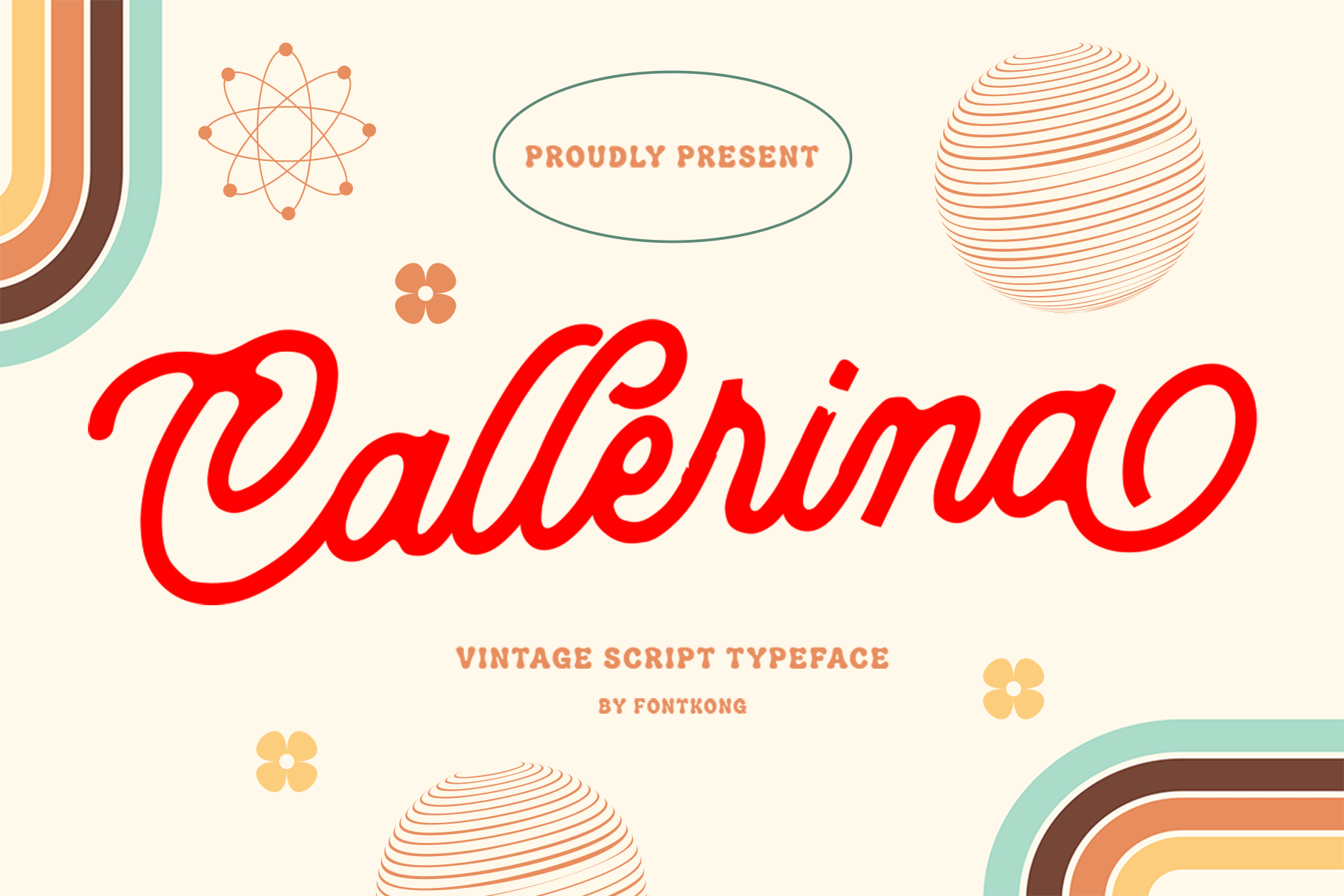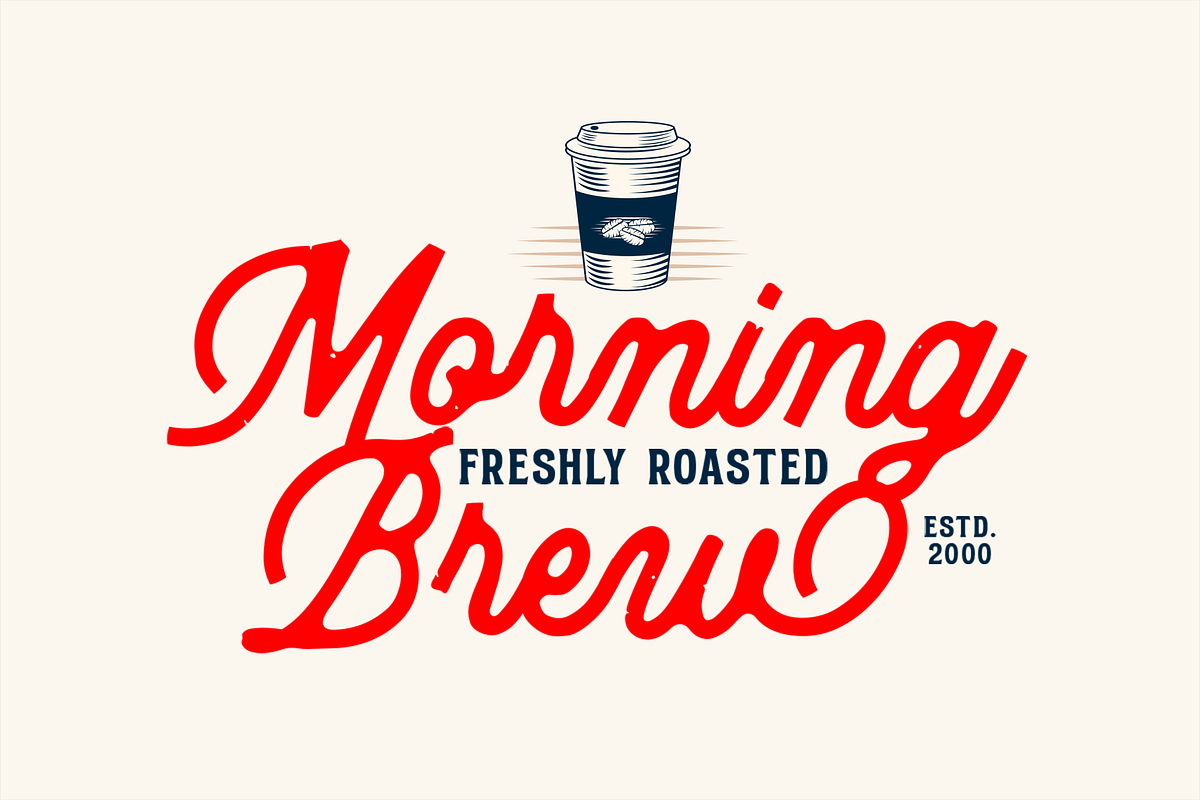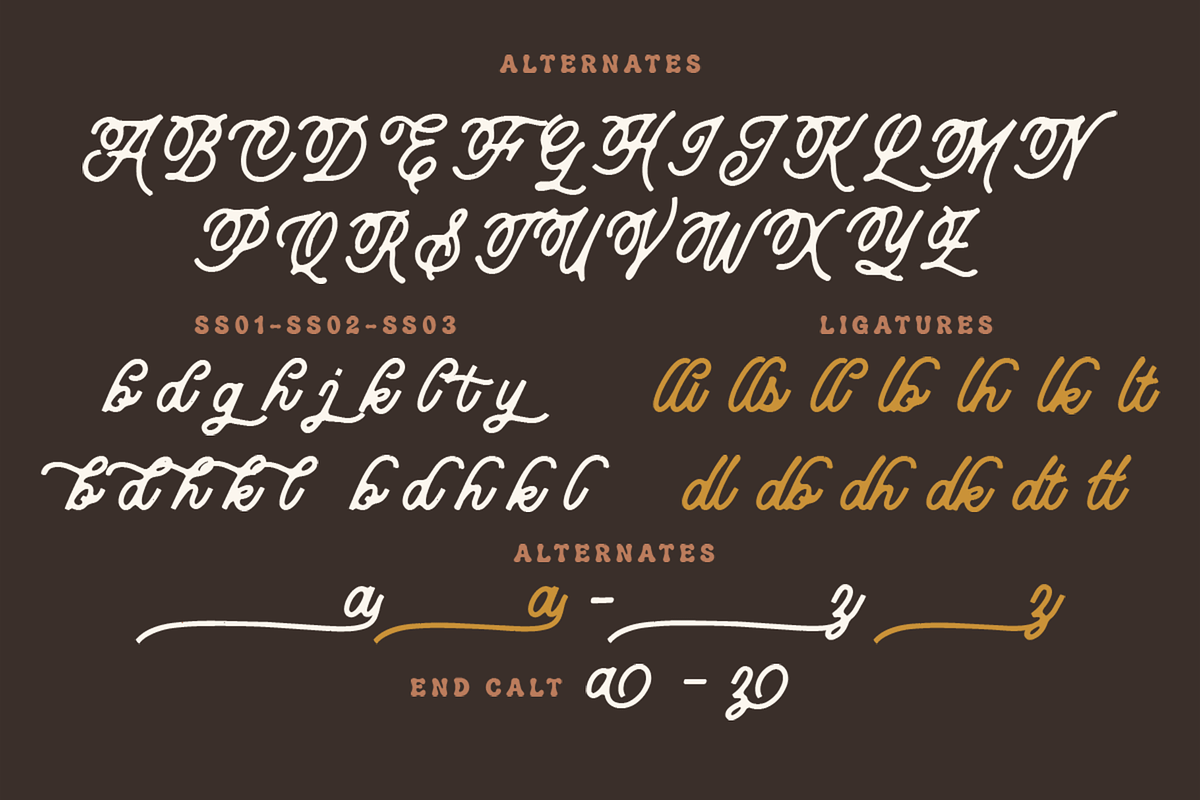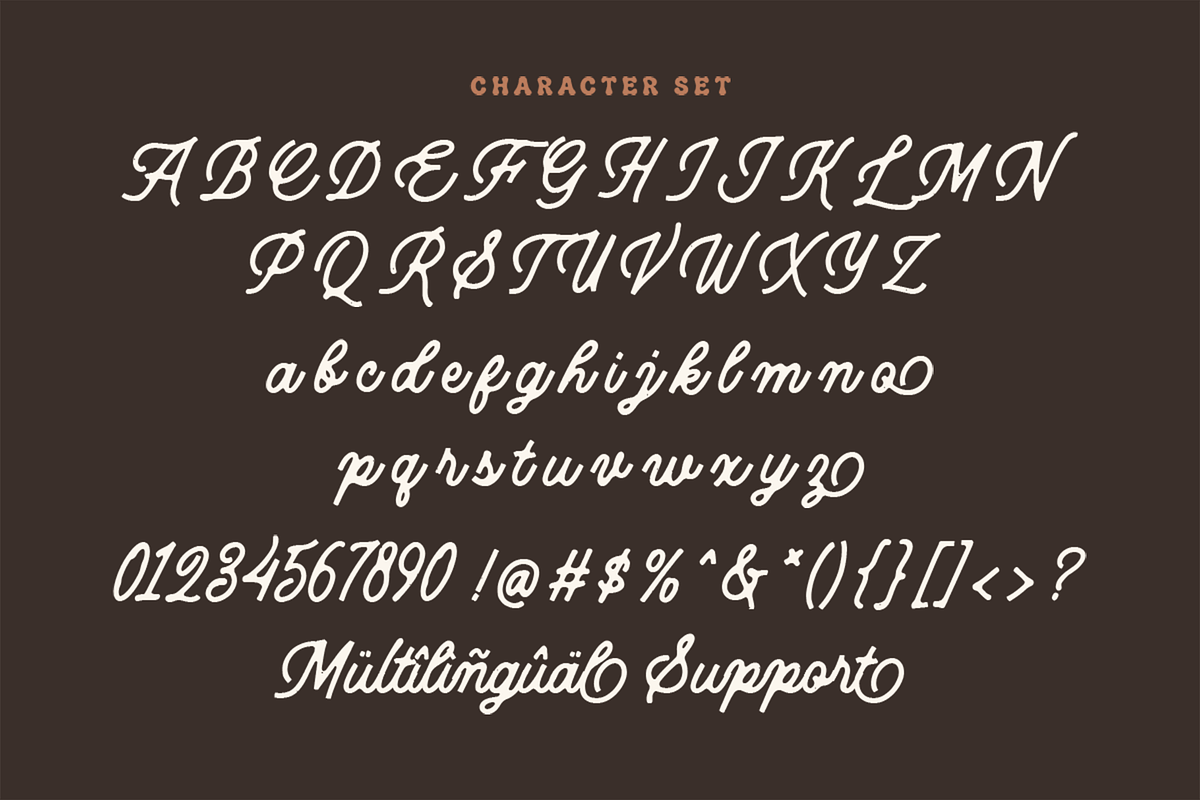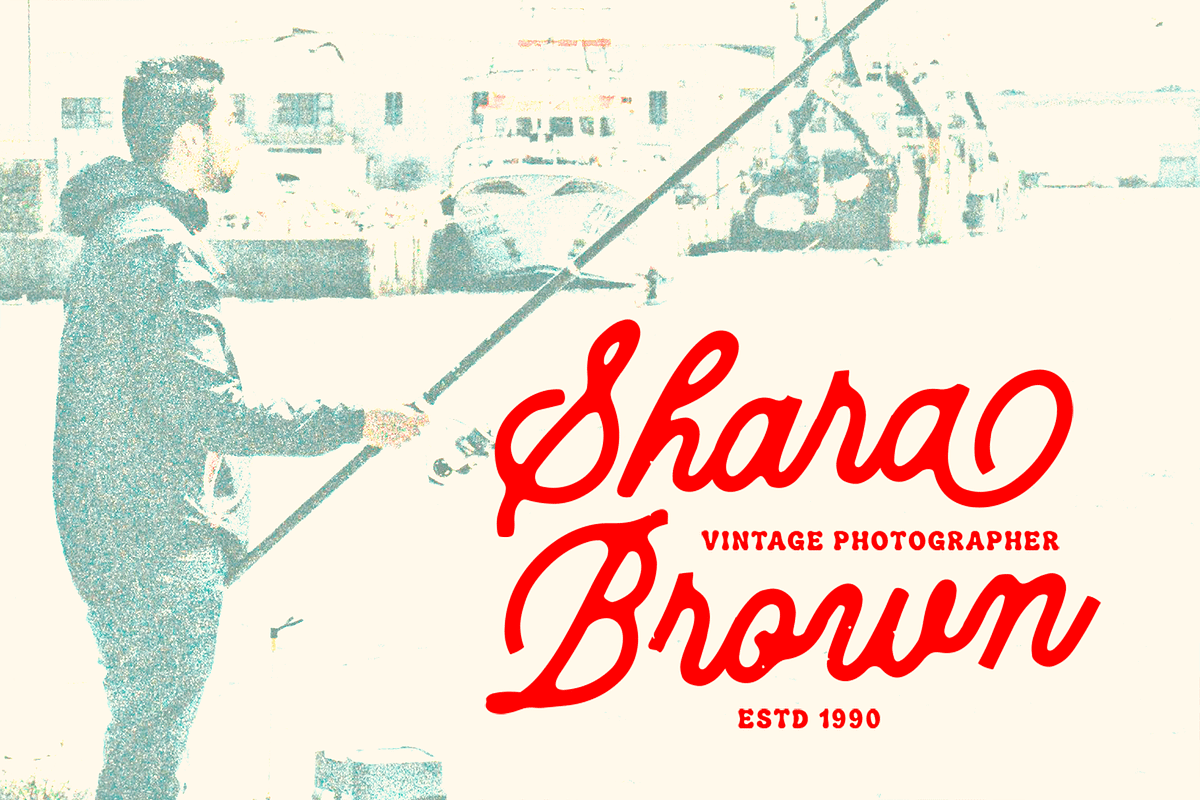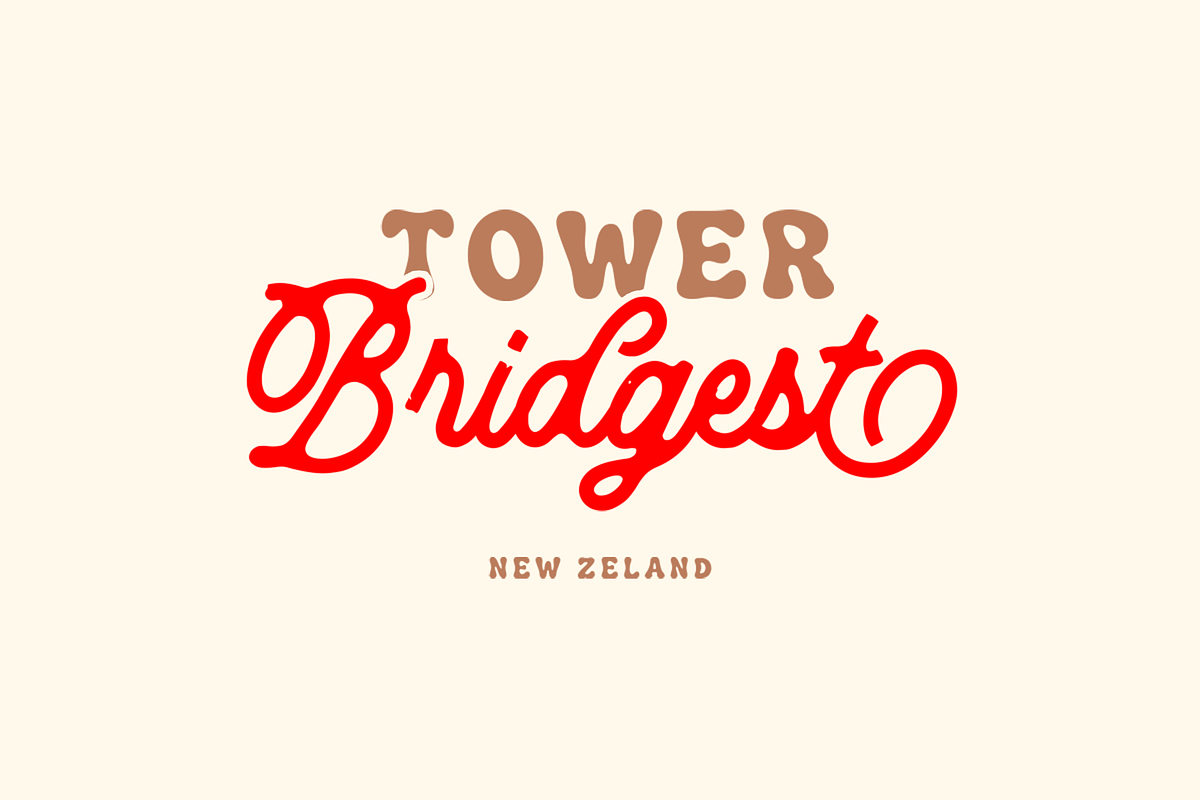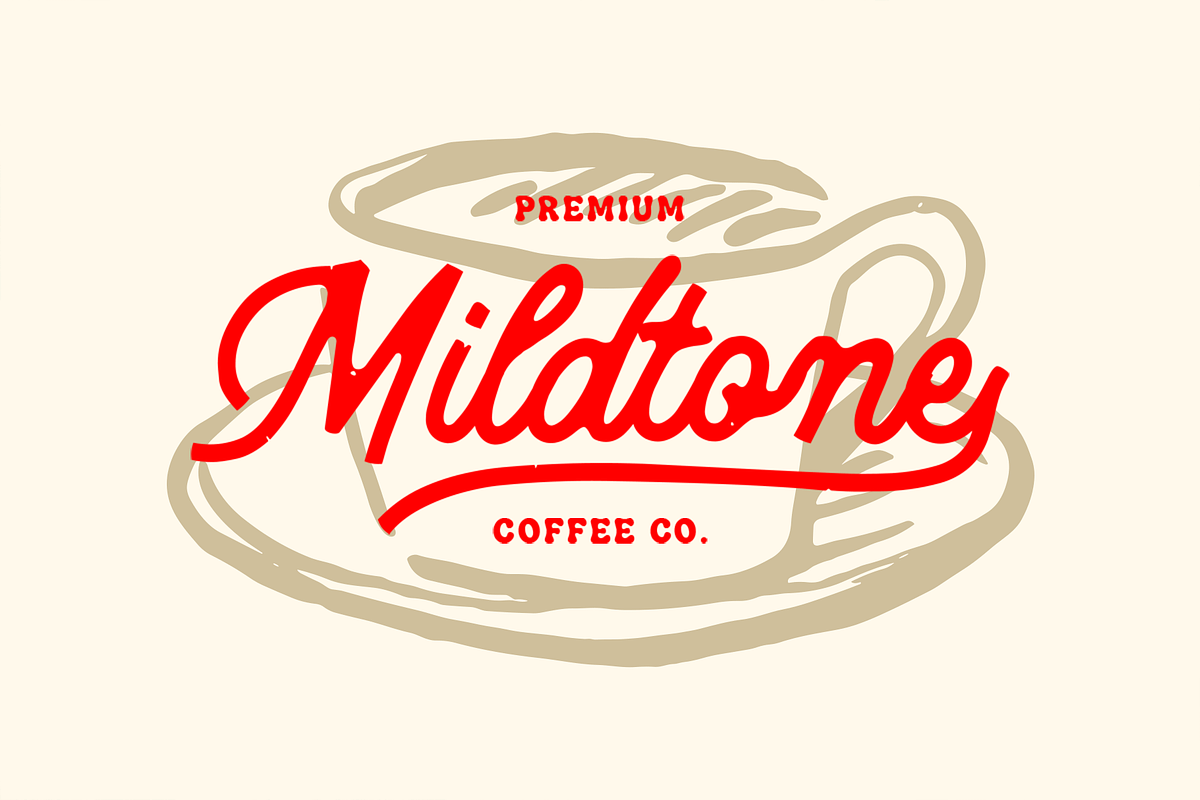
Callerina - Vintage Script Typeface
Introducing Callerina, a vintage script typeface inspired by classic calligraphy and elegant handwritten lettering. With its flowing strokes, graceful curves, and refined vintage details, Callerina brings a sense of romance, tradition, and handcrafted beauty to your creative designs.
Callerina includes uppercase and lowercase letters, numerals, punctuation, stylistic alternates, and multilingual support, providing flexibility for a wide range of creative needs. Whether you're designing a luxury brand, a handcrafted product label, or a romantic event invitation, Callerina enhances your typography with elegance and authenticity.